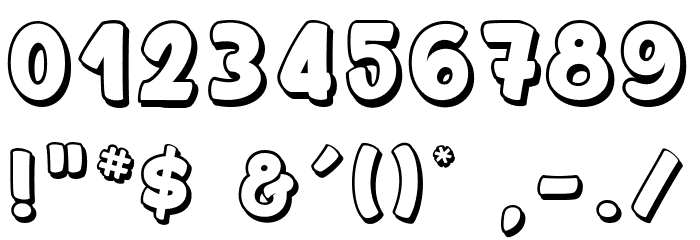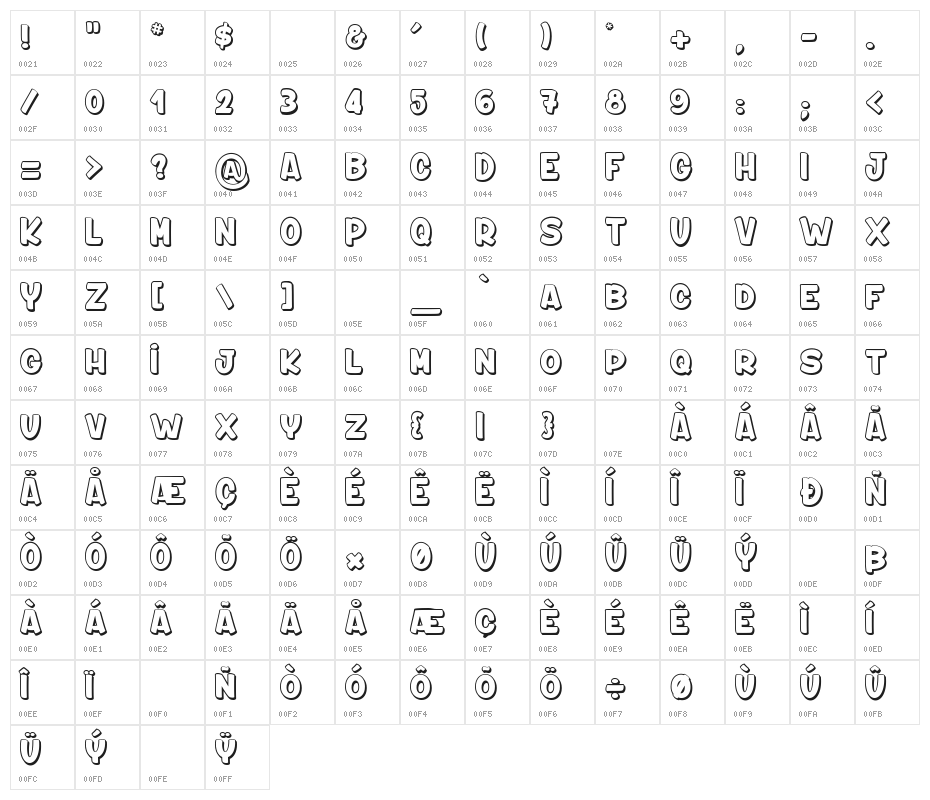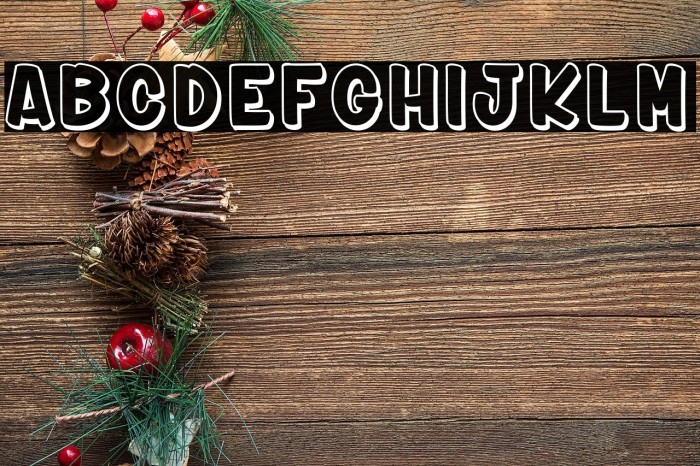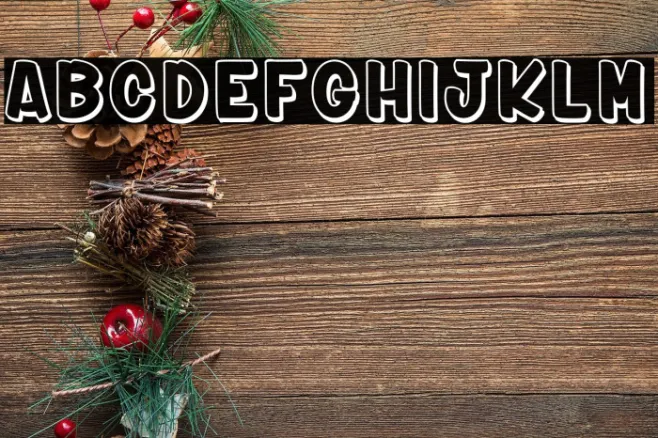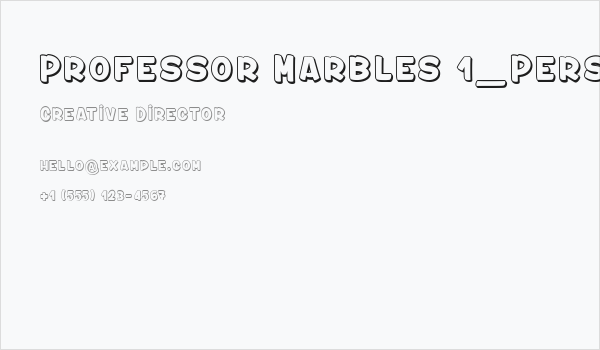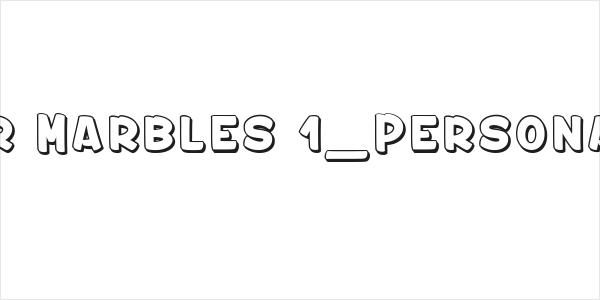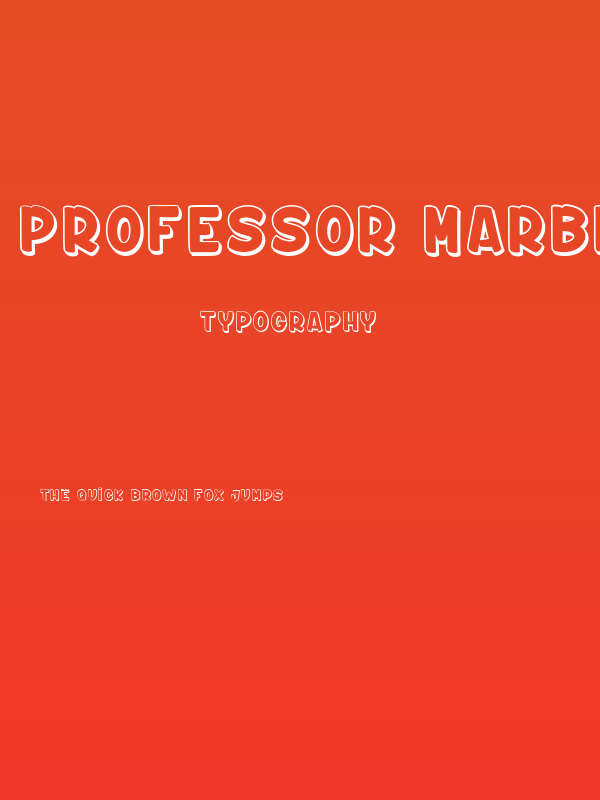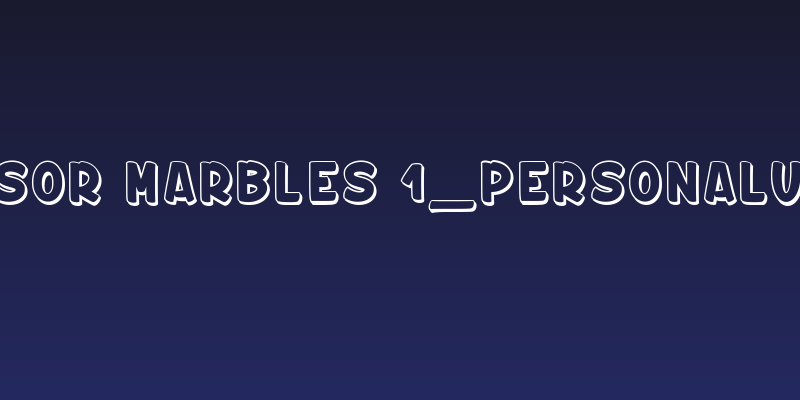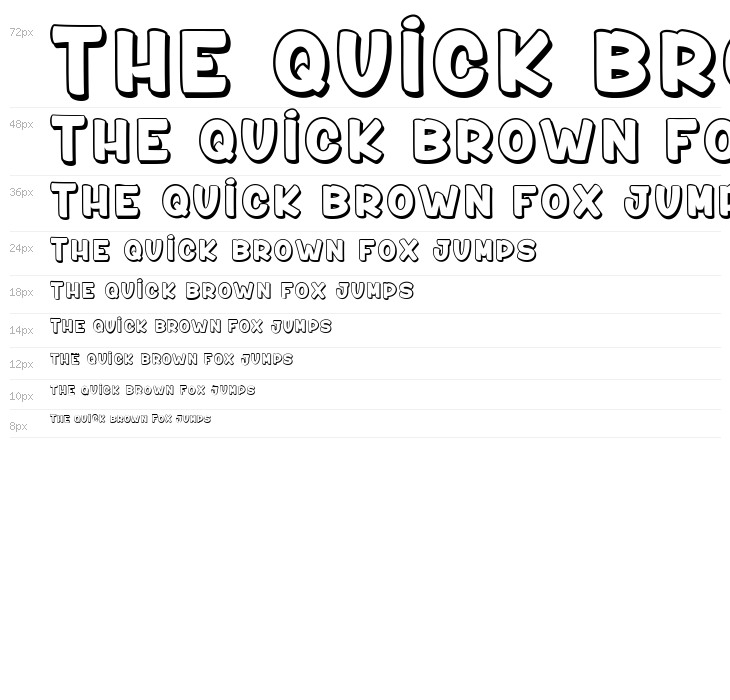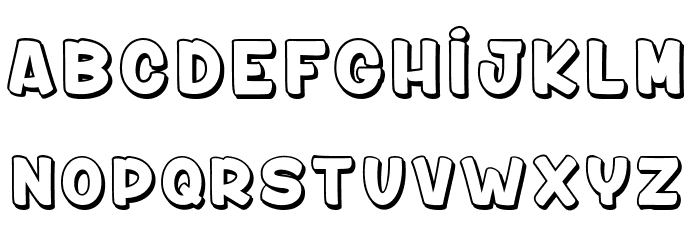
Professor Marbles 1_PersonalUseOnly Font
This playful and bold font features a bubble-like, outlined style that gives it a fun and approachable appearance. The characters are rounded and thick, with a consistent stroke width that maintains a uniform look across all letters and numbers. The uppercase and lowercase letters share a similar height, enhancing the font's cohesive design. The numerals and special characters are equally bold and rounded, fitting seamlessly with the alphabetic characters. This font's unique style makes it stand out, perfect for projects that require a touch of whimsy and creativity.